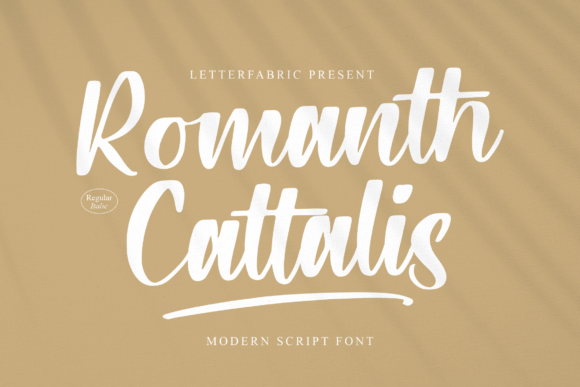
Feast your eyes on Romanth Cattalis, a script font that exudes sweetness, elegance, and charm. Its graceful curves and delicate serifs lend a natural and authentic handwritten look to your designs. Far from being just another font, Romanth Cattalis is an expression of art that will elevate your projects to new heights.
This captivating script font is the perfect choice for adding a touch of romance and sophistication to your designs. Whether you're creating wedding invitations, logos, social media graphics, or any other project that calls for a touch of elegance, Romanth Cattalis will leave a lasting impression.
With its carefully crafted characters and flowing lines, Romanth Cattalis brings a sense of joy and playfulness to your designs. It's the perfect choice for adding a personal touch to your work, capturing the essence of individuality and creativity.
Born from the imagination of Letterfabric, Romanth Cattalis is a versatile font that can adapt to a wide range of design styles. Whether you're aiming for a classic, vintage, or contemporary look, this versatile font will seamlessly blend into your vision.
Don't settle for ordinary fonts that fail to inspire. Embrace the charm and allure of Romanth Cattalis, and let your designs speak volumes. With its exquisite beauty and versatility, this font will transform your projects into masterpieces that captivate and enchant your audience.